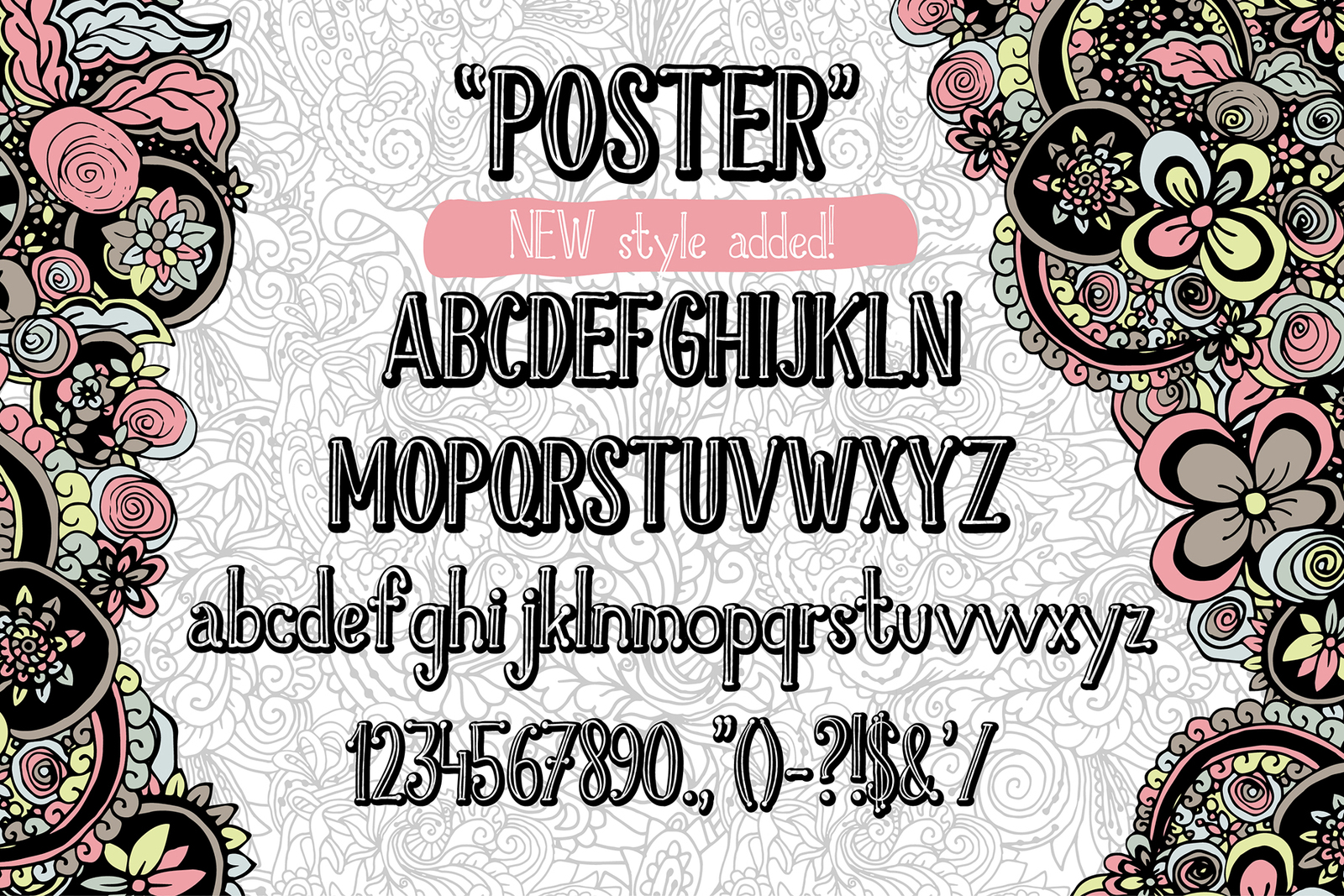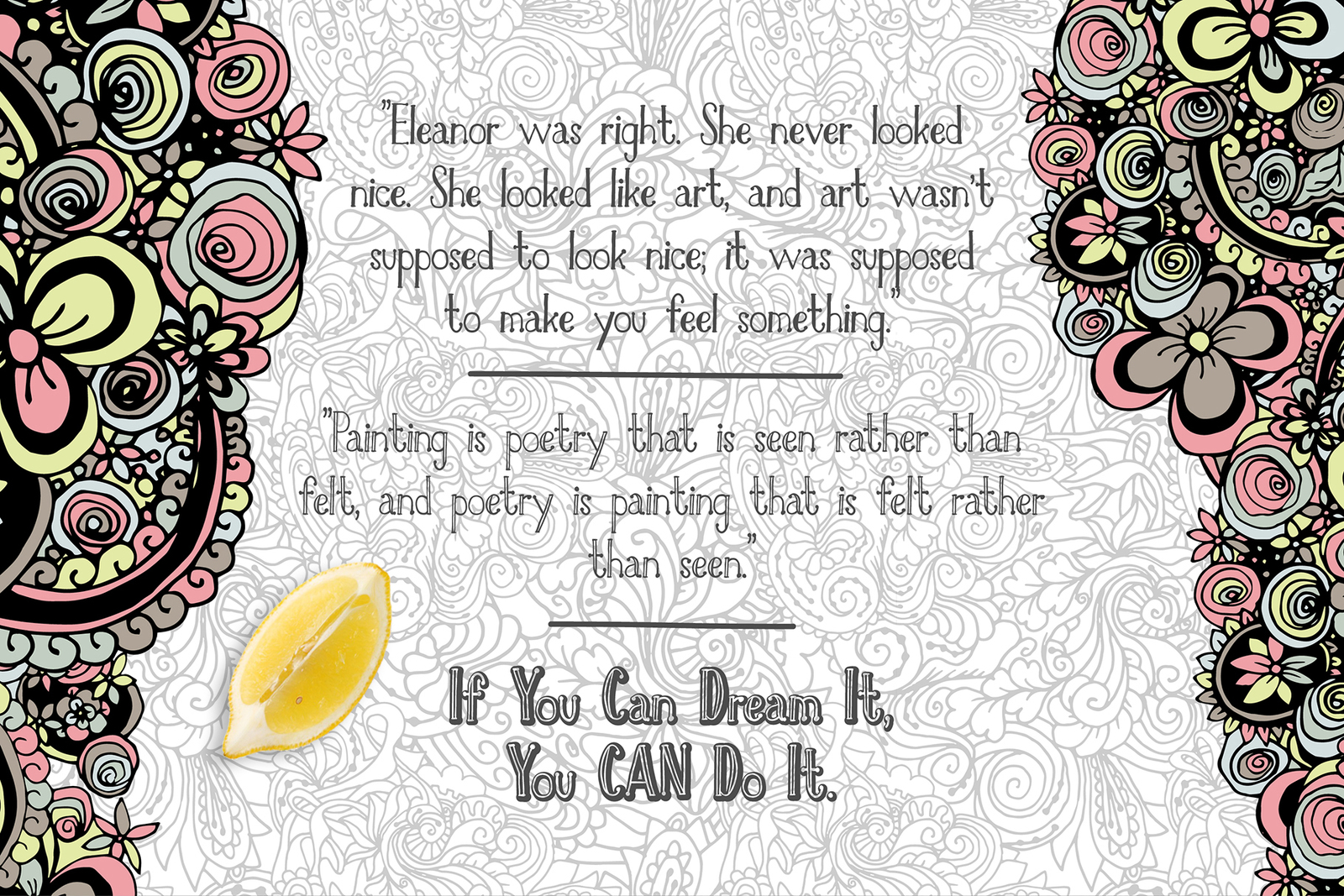
Doodling - hand crafted typeface
Doodling typeface is perfect for any hand-crafted products!
Original hand painted characters in OTF with kerning support and anti-aliasing.
Three Styles:
Bold,
Regular,
Poster-style
Include:
UPPERCASE
SMALLCASE
NUMBERS
SYMBOLS